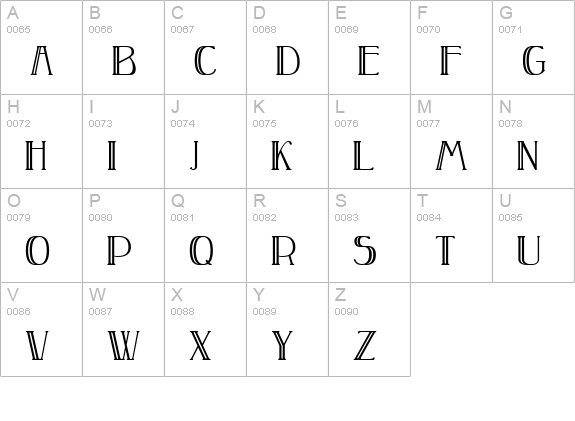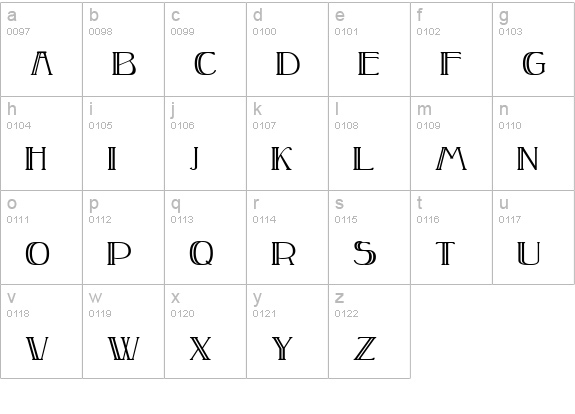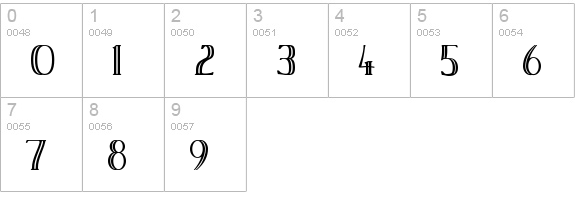
Peake Doubled Font Details
Peake Doubled font is a striking and versatile typeface that exudes elegance and sophistication. With its unique doubled letter design, it adds a modern and stylish touch to any project. Perfect for branding, logos, headlines, and more, Peake Doubled font is sure to make a bold statement. What's even better is that Peake Doubled font is completely free to download at FontsMarket.com. This means you can enhance your designs with this eye-catching font without breaking the bank. So why wait? Add Peake Doubled font to your collection today and let your creativity shine!